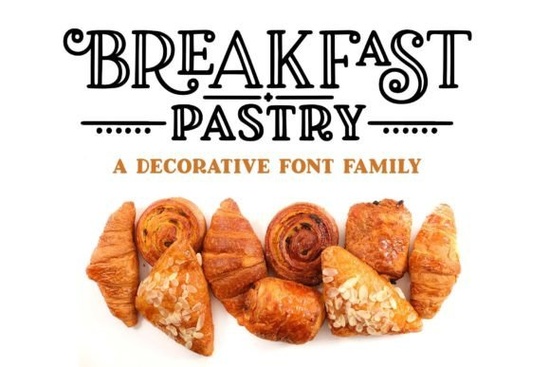
If you’ve ever wanted a font that feels like fresh croissants straight from the oven warm, inviting, and just a little playful Breakfast Pastry Font might be exactly what your next project needs. It’s a hand-drawn serif with big, fun ball terminals those round ends on letters that give it charm and tons of alternates to keep things interesting. Whether you’re designing greeting cards, packaging, or print-on-demand merch, this font brings personality without being overwhelming.
What makes Breakfast Pastry different from other display fonts?
Most display fonts go one of two ways: super formal or wildly chaotic. Breakfast Pastry finds a sweet spot in between. The letters started as hand sketches, so they feel organic and human not robotic. But they’ve also been cleaned up enough to work smoothly with cutting machines or printers. You won’t get jagged edges or weird glitches when you scale them down or cut vinyl.
There are actually three versions included:
- Regular – the original with open counters and cutouts
- Solid – same shapes, but filled in for bolder impact
- Thin – a lighter, more delicate take for elegant layouts
All three share the same character set over 700 glyphs total so switching between them doesn’t mean losing access to swashes or ligatures. That kind of consistency is rare and seriously helpful if you’re layering text or building brand assets.
Who should use this font?
If you run a small bakery, coffee shop, or handmade goods business, this font fits right in. It’s also great for crafters making SVG files, printable planners, or custom quotes for Etsy shops. Even hobbyists who just love typography will enjoy playing with all the extras like catchwords, small caps, and those bonus ornaments that look like little pastry swirls.
How many alternates and special characters are really included?
A lot. Like, over 230 extras across all three fonts. That includes:
- Alternate letterforms (some with one swash, some with two or three)
- Ligatures for smoother letter pairs
- Small caps for subtle hierarchy
- Catchwords like “&”, “the”, or “by” styled to match
- Decorative elements you can drop in anywhere
Is it good for non-English languages?
Yes. Each font includes over 300 extended Latin characters, which covers most Western European languages French, Spanish, German, Portuguese, Dutch, and more. Accents, umlauts, tildes they’re all there and styled to match the rest of the typeface. That’s especially useful if you’re selling digital products internationally or designing bilingual packaging.
Any tips for getting the most out of this font?
Don’t be afraid to mix the three weights. Try the Thin version for body text or subheadings, then punch up headlines with the Solid style. Use the Regular for logos or icons where you want that open, airy feel.
Also, play with spacing. This font has generous kerning by default, but tightening it up slightly can make words feel more cohesive especially in short phrases like “Good Morning” or “Fresh Baked.”